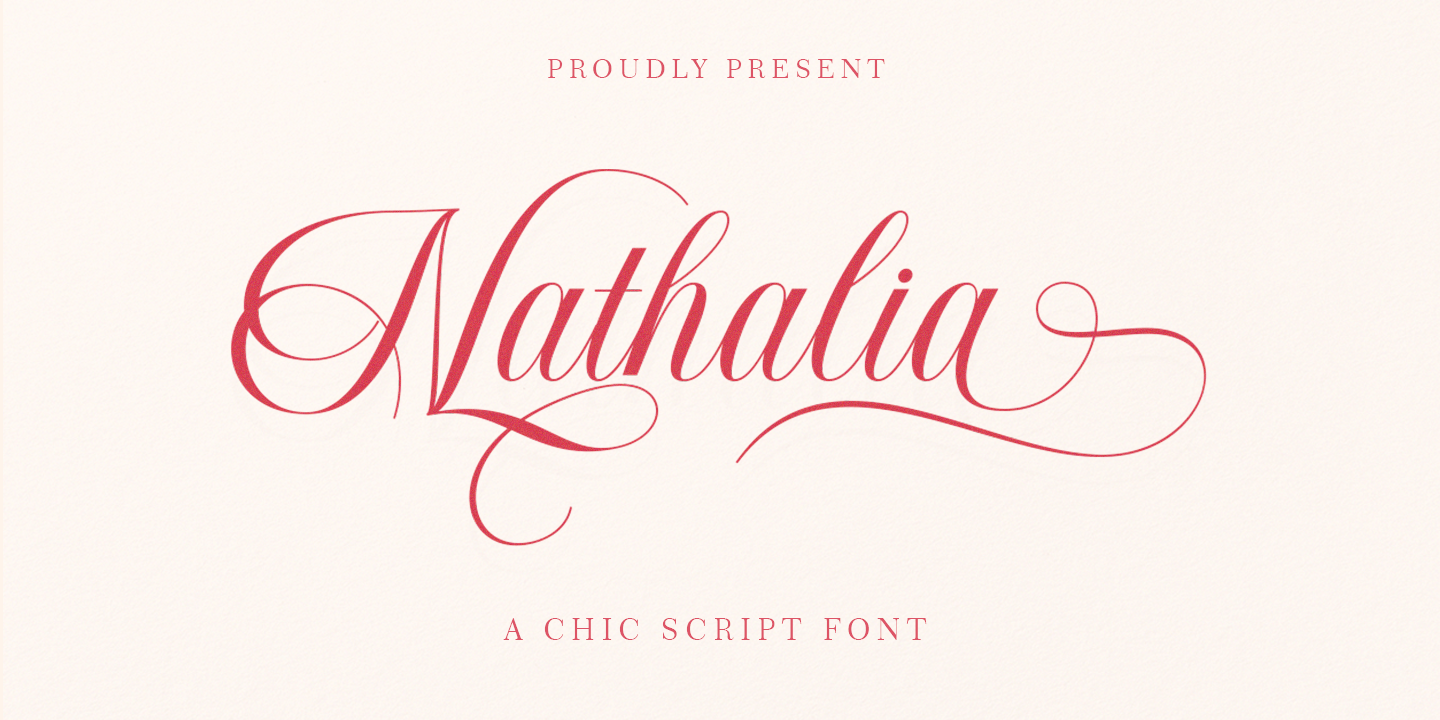
This elegant script font is perfect for luxury wedding invitations, feminine beauty branding, high-end boutique signage, romantic greeting cards, sophisticated fashion campaigns, premium cosmetics packaging, upscale spa marketing, and graceful design projects that celebrate timeless femininity and refined elegance.
Nathalia Font is exciting because it embodies graceful sophistication with its flowing letterforms that dance like poetry written in golden ink. The font captures feminine strength and delicate beauty in perfect harmony, creating typography that whispers elegance and romance.
The Nathalia Font family includes regular and ornamental versions with decorative swashes, romantic flourishes, and elegant alternates, providing designers with comprehensive tools for creating enchanting typography that captivates with graceful charm.
Ready to embrace timeless femininity? Nathalia Font Free Download offers designers flowing letterforms that radiate with sophisticated grace and feminine elegance. This captivating typeface combines romantic aesthetics with professional versatility, making it ideal for luxury wedding planners, beauty brands, and high-end fashion companies. Whether you're designing exclusive wedding stationery, luxury beauty campaigns, or elegant fashion promotions, this font delivers enchanting appeal. The gracefully scripted characters feature romantic curves while maintaining excellent readability across feminine applications. Perfect for businesses in wedding planning, beauty, fashion, and luxury lifestyle sectors that celebrate feminine grace and sophisticated romance. The font's elegant construction creates memorable brand recognition that resonates with refined women worldwide. Each letter showcases deliberate beauty that mirrors the timeless appeal of feminine sophistication. Download today and infuse your creative projects with graceful elegance using this premium script font that transforms ordinary text into extraordinary expressions of feminine beauty and the enchanting allure of Nathalia Font Free Download grace.